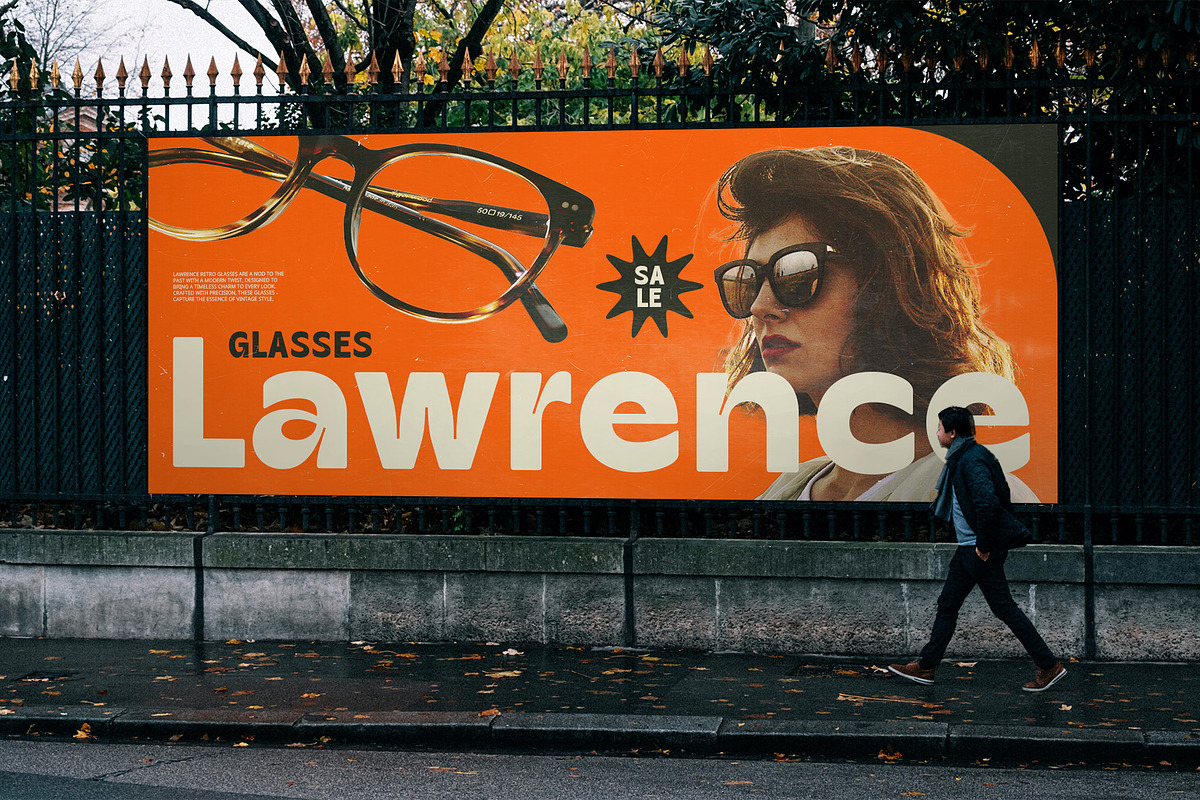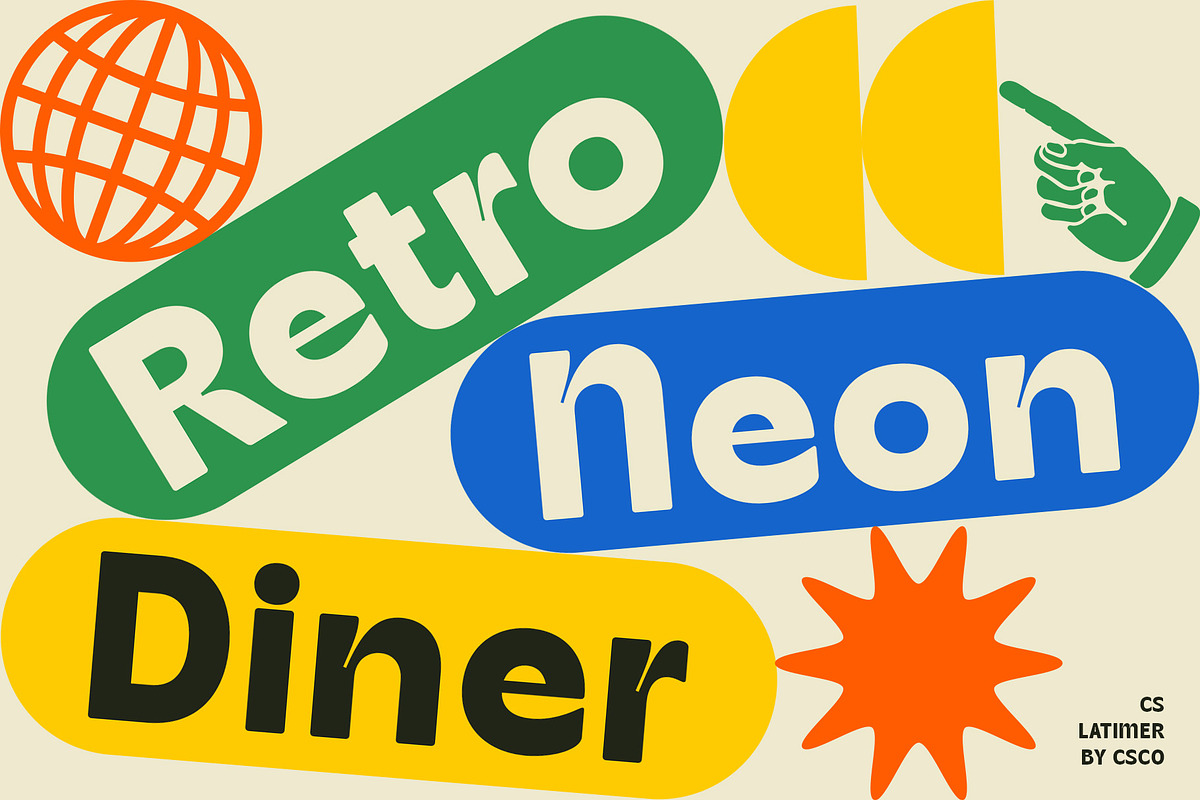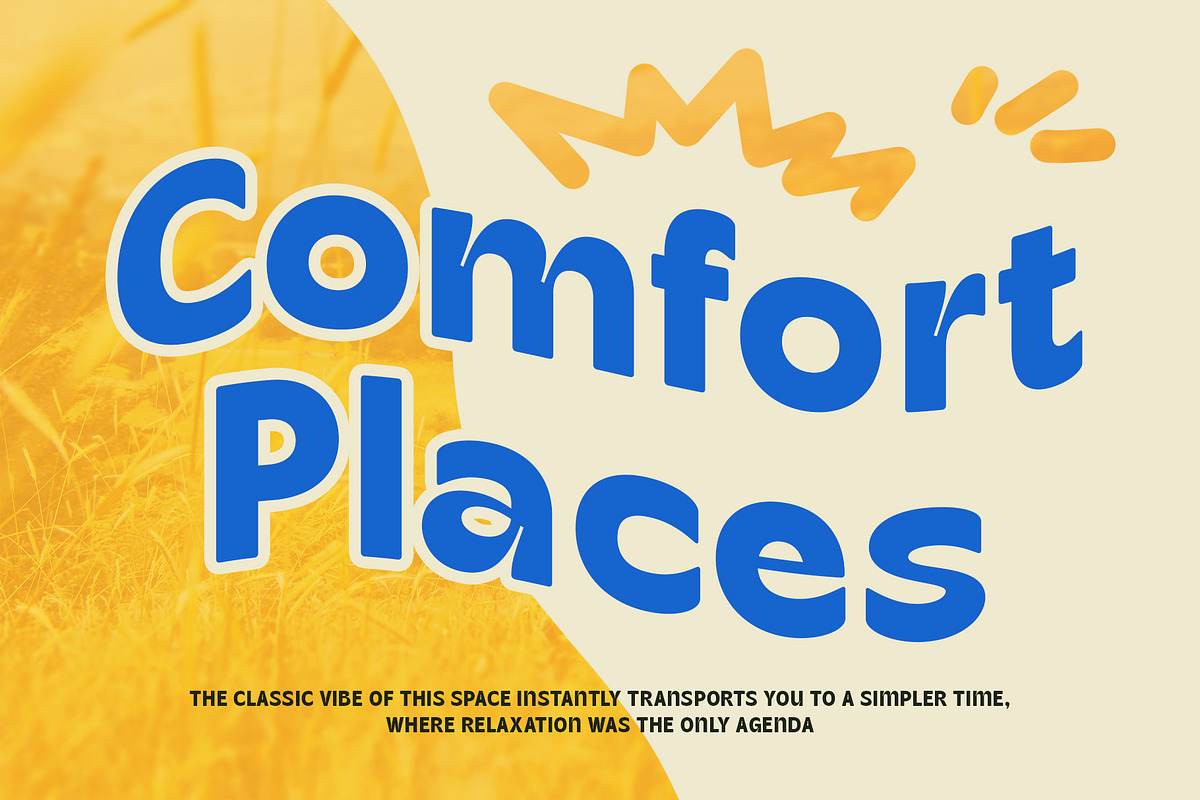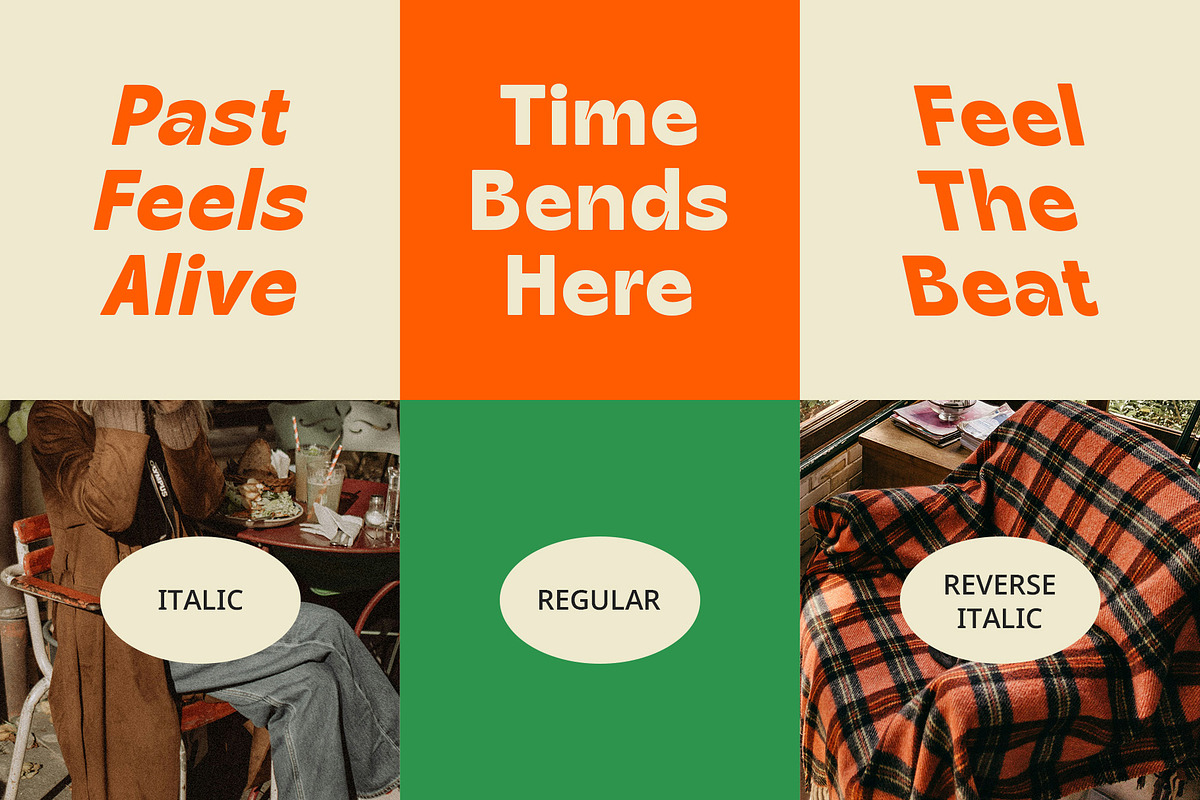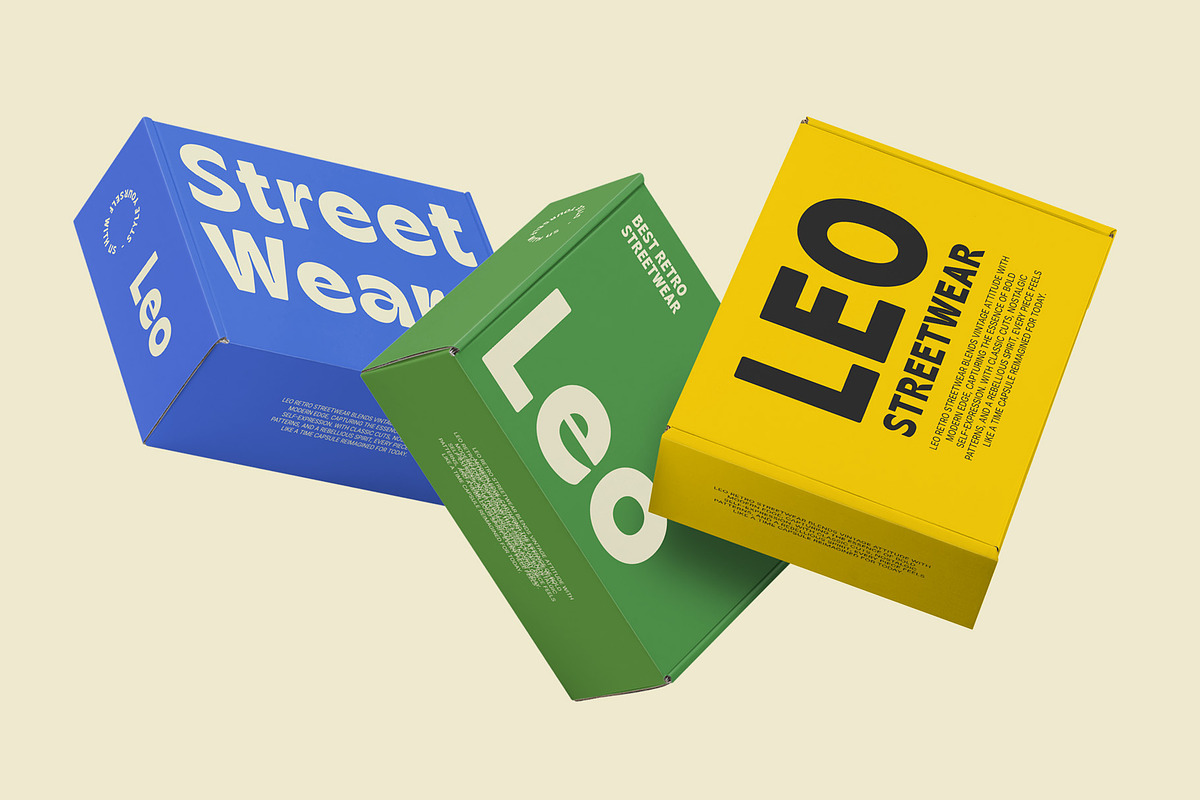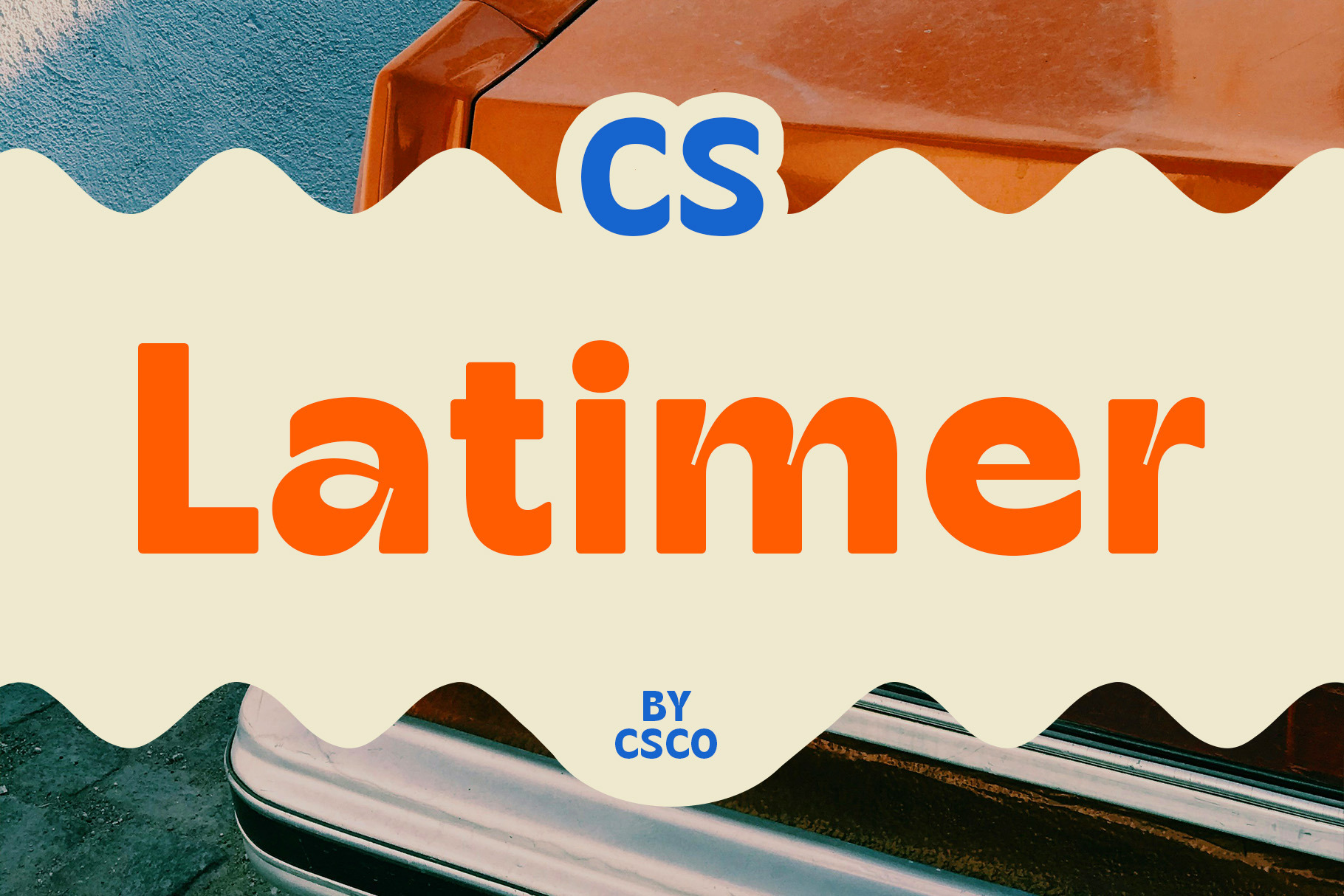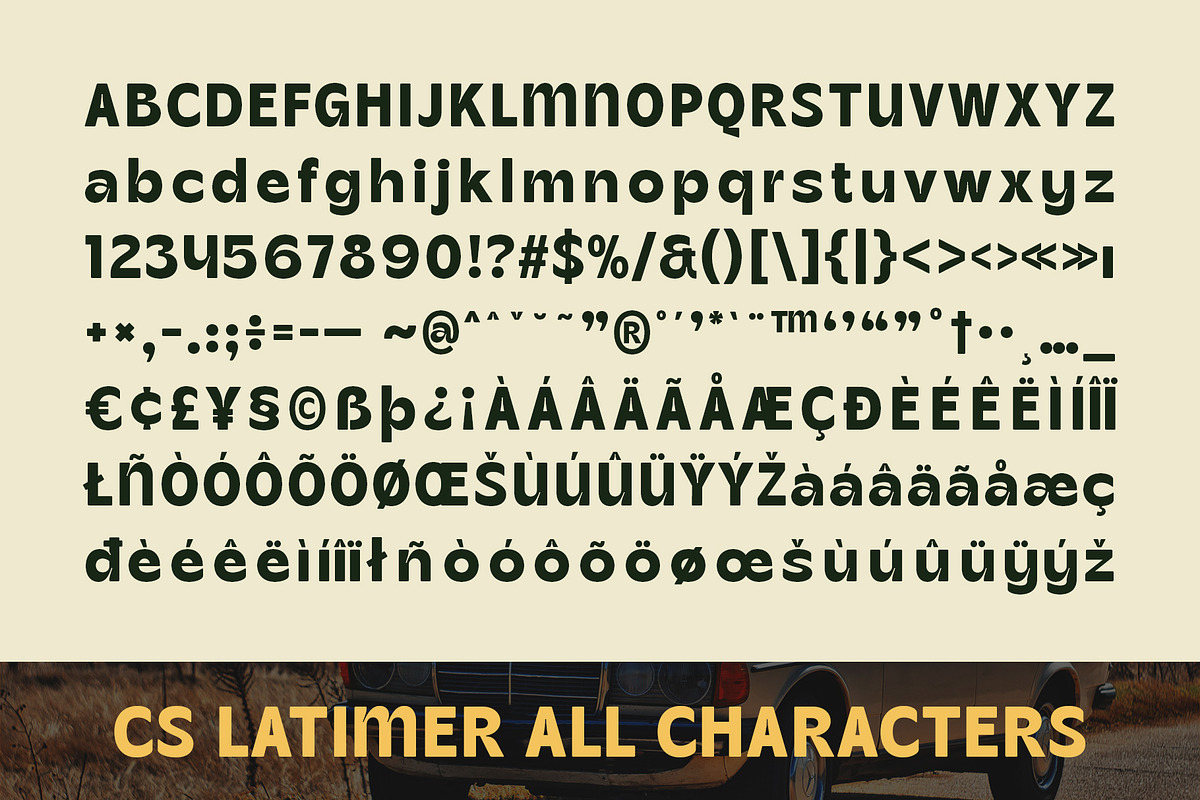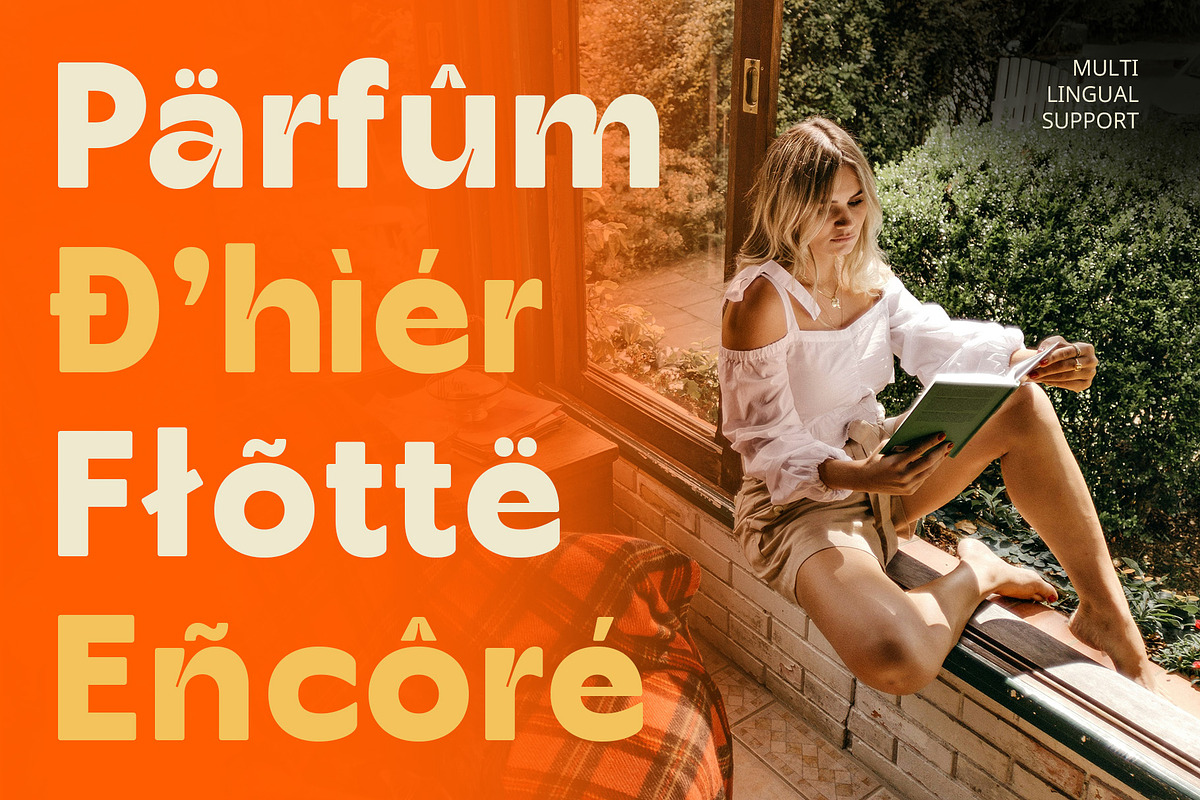
CS Latimer – Retro Font
CS Latimer – Retro Font: A Bold Fusion of Vintage and Modern Style
A Classic Sans-Serif with a Funky Retro Vibe CS Latimer is a bold and dynamic sans-serif font that embodies the energy of vintage design with a fresh, modern twist. Its strong yet playful letterforms create a striking visual presence, making it the perfect choice for designers looking to capture the essence of retro aesthetics with a contemporary edge.
Bold Letterforms for a Captivating Look With its thick strokes and confident shapes, CS Latimer stands out effortlessly in any composition. The slightly rounded edges and fluid structure add a touch of playfulness while maintaining a structured and professional appearance. This balance makes it ideal for designs that demand both impact and character.
Perfect for Retro-Inspired Branding and Advertising CS Latimer brings nostalgic charm to branding, posters, and packaging. Its retro-funky appeal enhances product labels, vintage-style ads, and bold logotypes, giving them a distinctive and eye-catching personality.
Versatile for Posters, Merch, and Digital Graphics Beyond branding, CS Latimer thrives in bold creative projects such as music posters, event flyers, and merchandise. Its vintage aesthetic, combined with a slightly playful edge, makes it an excellent choice for designs that seek to capture attention and evoke nostalgia while remaining fresh and relevant in contemporary design spaces.
- CS Latimer Regular
- CS Latimer Italic
- CS Latimer Reverse Italic